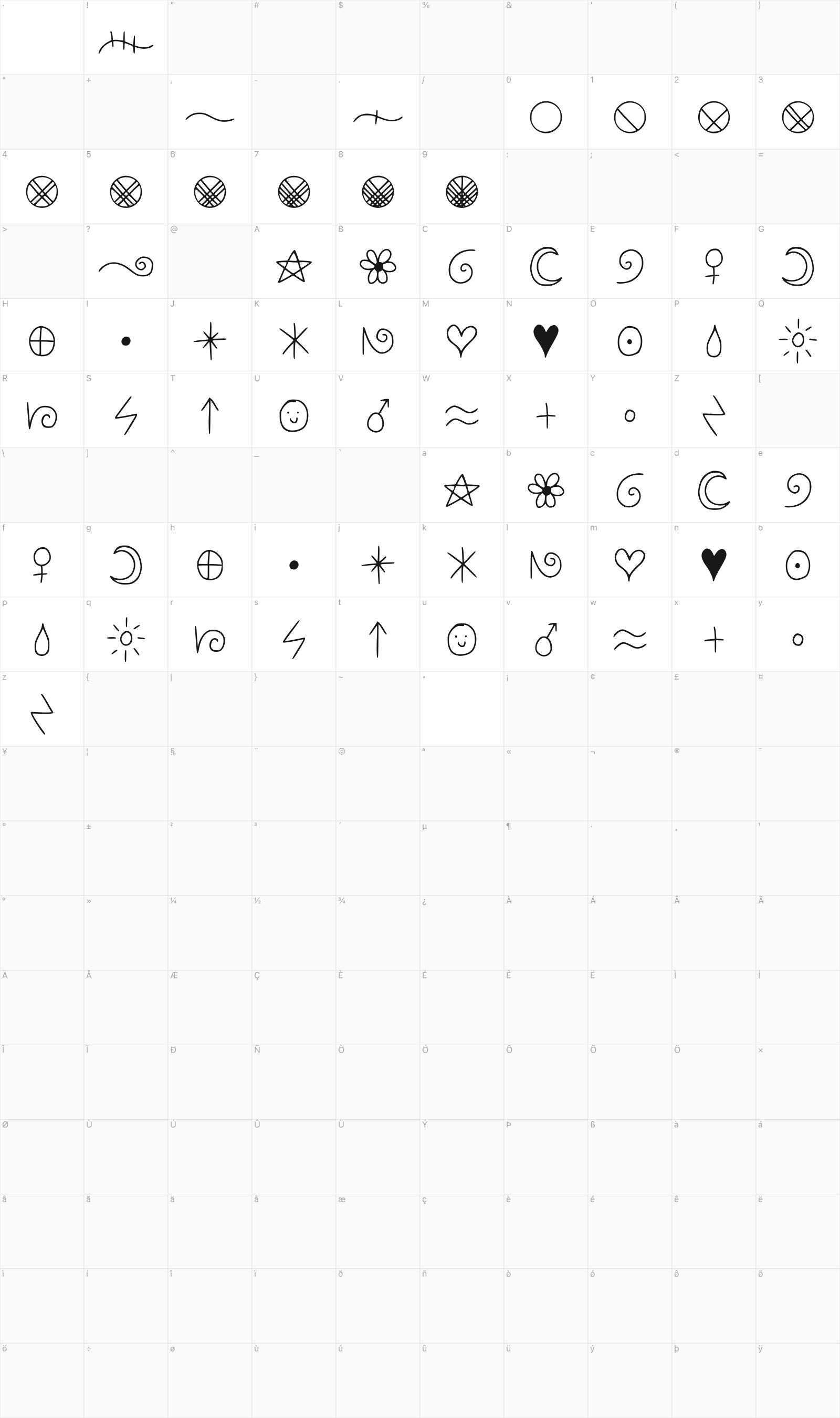
Fairy Code
by Allie Bowie
Fairy Code is a hand-drawn dingbat font packed with whimsical symbols ranging from celestial glyphs and astrological signs to hearts, flowers, and smiley faces. The loose, sketch-like stroke quality gives each symbol a personal, illustrated feel rather than a rigid icon set. Useful for decorative accents, bullet points, or anywhere a touch of magic is needed.